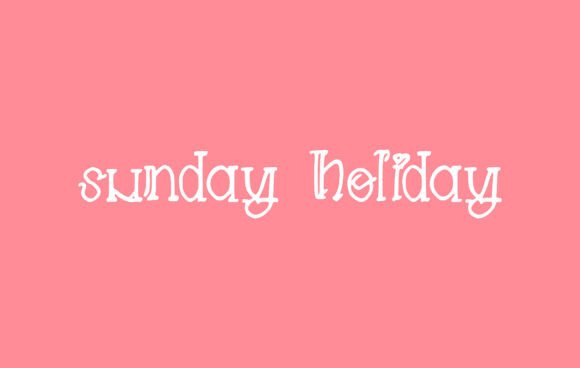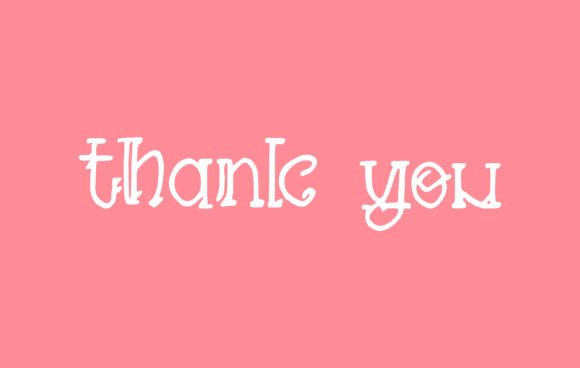
Introduction to Needle Font
As a designer, there’s nothing quite like the rush of excitement when you stumble upon the perfect font for your creative project. The words seem to come alive, and your vision takes shape. For many, this moment is often elusive, but with the right design resource, it’s within reach. Enter Needle Font, an authentic handwritten font with a romantic touch that’s set to revolutionize the way you approach your designs.
Needle Font is more than just a pretty face; it’s a high-quality font that’s legible and versatile, making it perfect for everything from magazine headlines to social media posts. With its transparent background and effortless style, it’s no wonder this font has become a favorite among designers.
Key Features of Needle Font
- High-quality, professional font design perfect for creative projects
- Unique, hand-crafted design elements that add a touch of elegance to any project
- Perfect for use in graphic design, digital art, and other creative endeavors
Honest Review: Needle Font
As a designer, I’m always on the lookout for high-quality design resources to elevate my creative projects. Recently, I had the opportunity to try out the Needle Font, and here’s my honest review.
- High-quality typography: The Needle Font boasts clean, elegant lines that make it perfect for a variety of design projects.
- Transparent background: The font’s transparent background makes it easy to layer over other design elements and create visually appealing compositions.
While the Needle Font is a great addition to any designer’s toolkit, I did find a few limitations:
- Limited character set: The font only includes a limited set of characters, which may not be suitable for projects that require a broader character range.
- No bold or italic weights: The font only comes in a single weight, which may not be ideal for designs that require emphasis or emphasis on certain text.
Overall Impression
Overall, I’m impressed with the Needle Font, and I think it’s a great resource for designers looking for a high-quality, free font. While it has some limitations, I believe it’s well worth downloading and experimenting with in your next creative project.
The Needle Font is ideal for creative projects such as:
- Event branding and marketing materials
- Graphic design and digital art